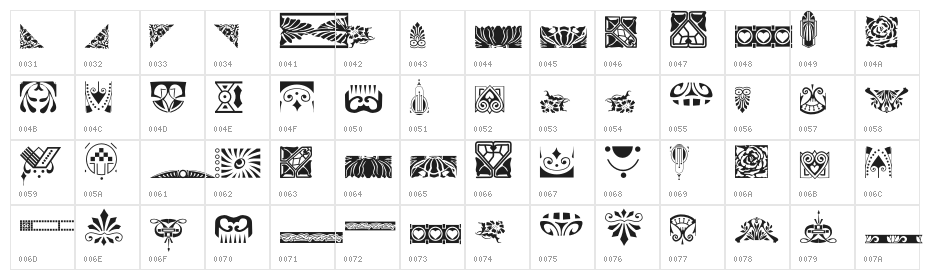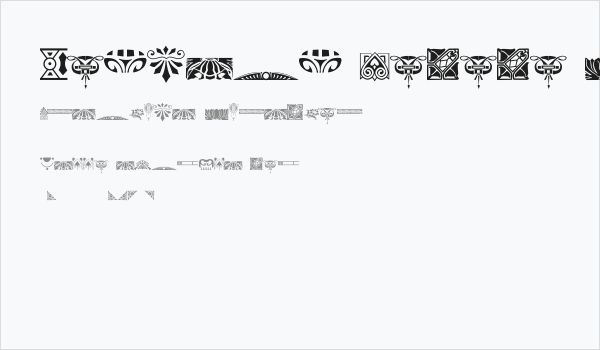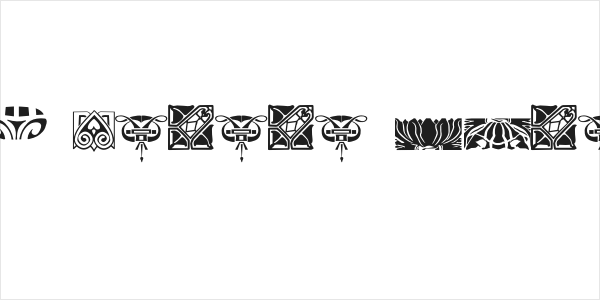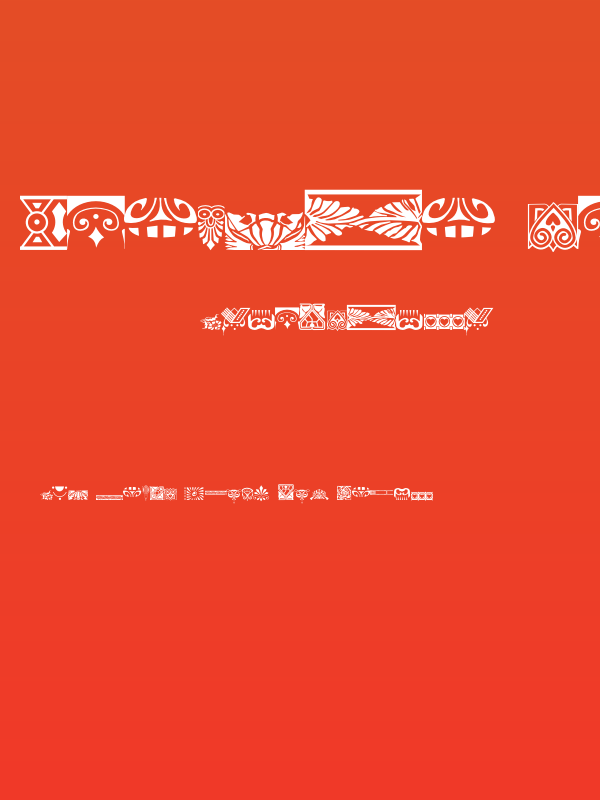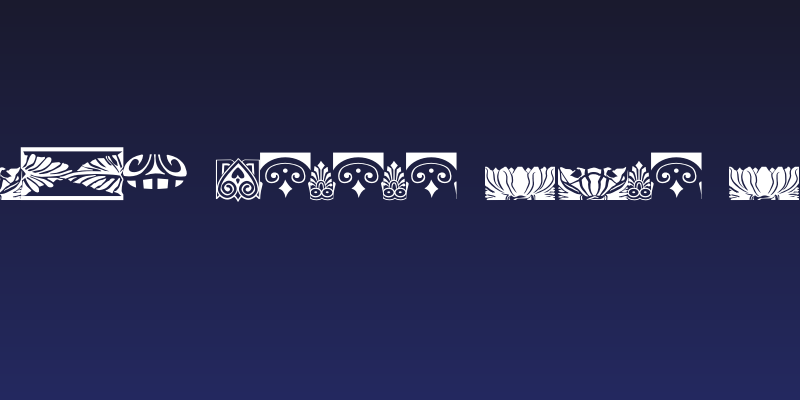
Nouveau Rococo Deco Dings I Font
Nouveau Rococo Deco Dings I Description
This set of decorative elements features intricate designs inspired by a blend of Nouveau, Rococo, and Deco styles. Each character is a unique ornamental piece, showcasing elaborate patterns and motifs that are reminiscent of vintage art movements. The designs include floral elements, geometric shapes, and abstract forms, all crafted with a high level of detail. These elements are perfect for adding a touch of elegance and sophistication to various design projects.
| Use Case | Decorative elements, Borders, Invitations |
| Proposed Projects | Ideal for use in invitations, greeting cards, decorative borders, and vintage-themed designs. |